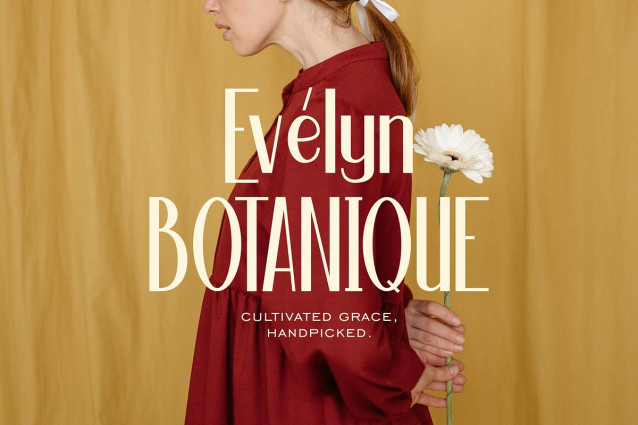
The Hilarious Font
The Hilarious Font is a beautiful display font that is tall and slender, featuring a charming blend of cheerful characters balanced with smooth and graceful curves. This font effortlessly combines vintage charm with modern elegance, while maintaining a classic feel with subtle art deco touches.
It is perfect for branding, fashion, editorial layouts, greeting cards, invitations, packaging, café menus, coffee shops, bakeries, posters, and any editorial design that requires a blend of elegance and personality.